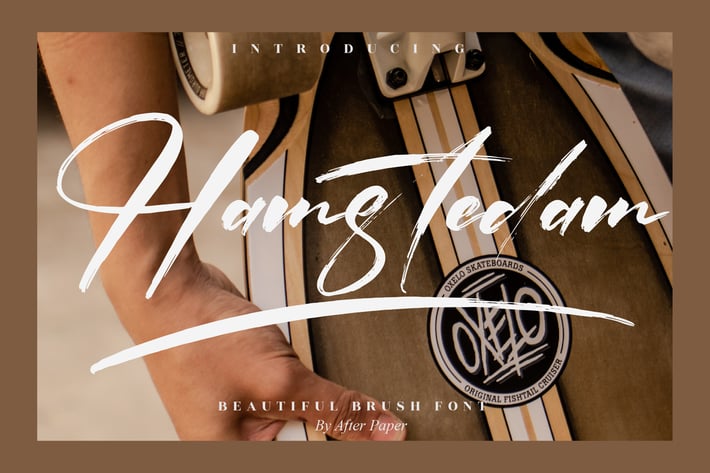
Hamstedam Brush Font
Hamstedam Brush Font is a stylish and expressive brush typeface designed with bold strokes and natural flow. It brings elegance and raw energy together, making it ideal for projects that need a handwritten yet professional touch. With its authentic brush texture, this font gives a dynamic and modern look to both digital and print designs.
+ Beautiful hand-brushed style
+ Natural stroke details
+ Uppercase, lowercase, numbers & punctuation
+ Multilingual support
+ Branding & logo design
+ Invitations & greeting cards
+ Social media graphics
+ Product packaging
+ Event posters & flyers
+ Lifestyle blogs & quotes
Bring elegance and boldness to your designs with Hamstedam Brush — where expressive strokes meet modern style.